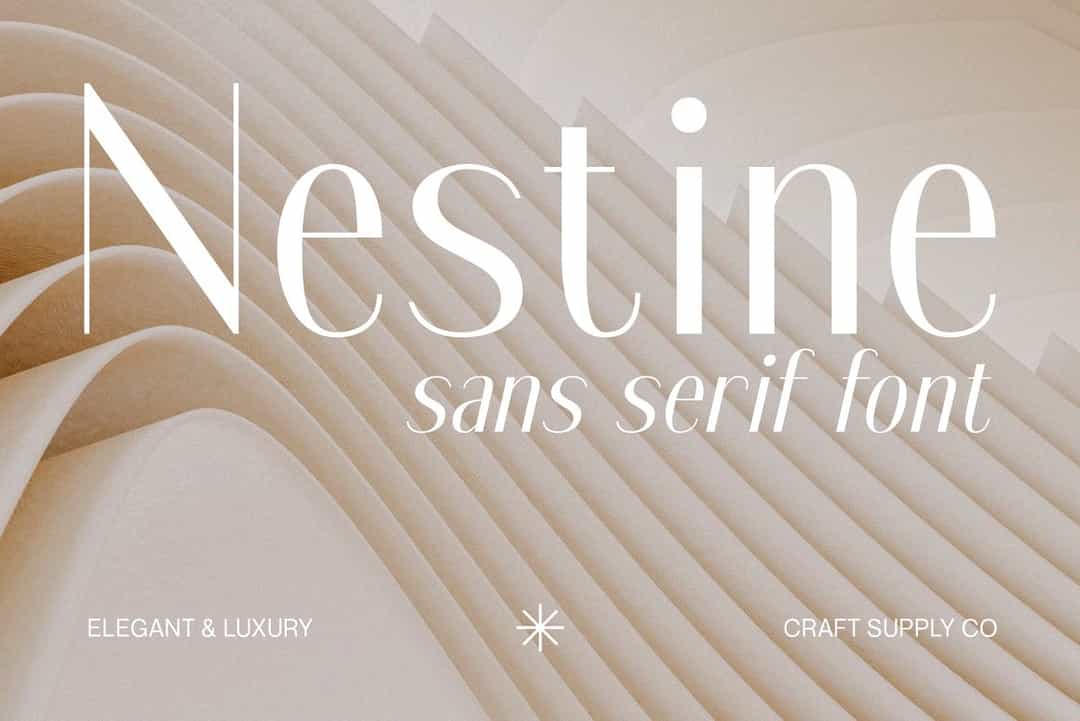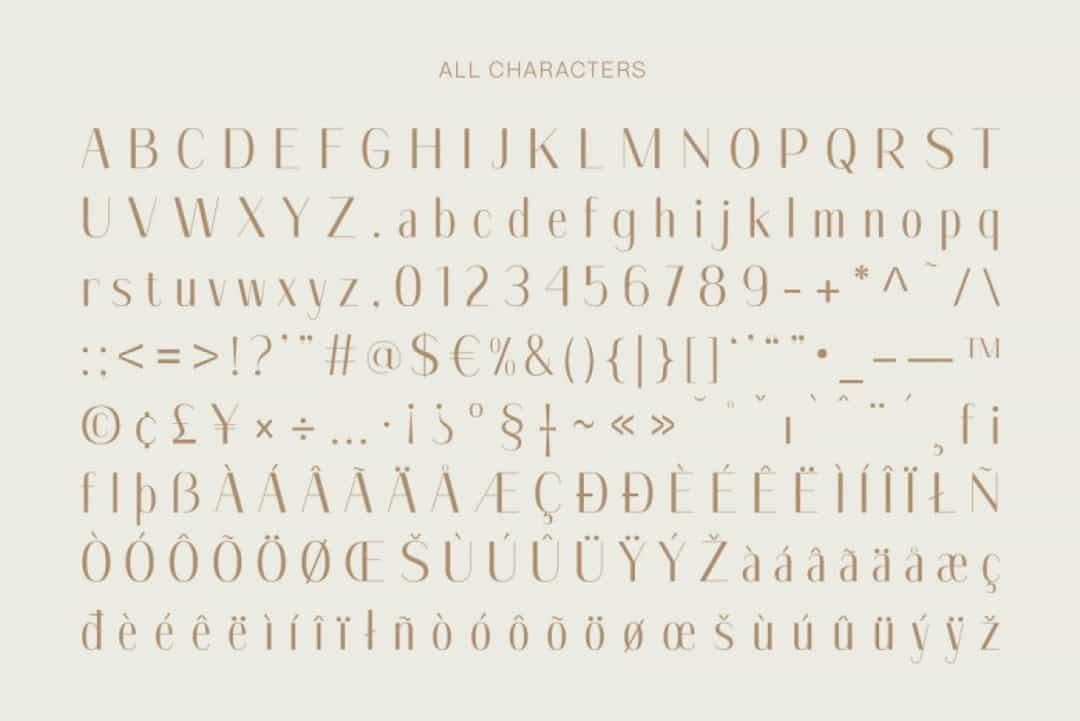
Nestine Beautiful Sans Serif is more than just the name of a font: it’s an artistic masterpiece with striking contrast between thin and thick lines that effortlessly communicates an air of sophistication and class. Nestine epitomizes elegance; its combination of thin and thick lines gives an appearance of elegant style making it the ideal choice for luxurious designs that require the user’s consideration.